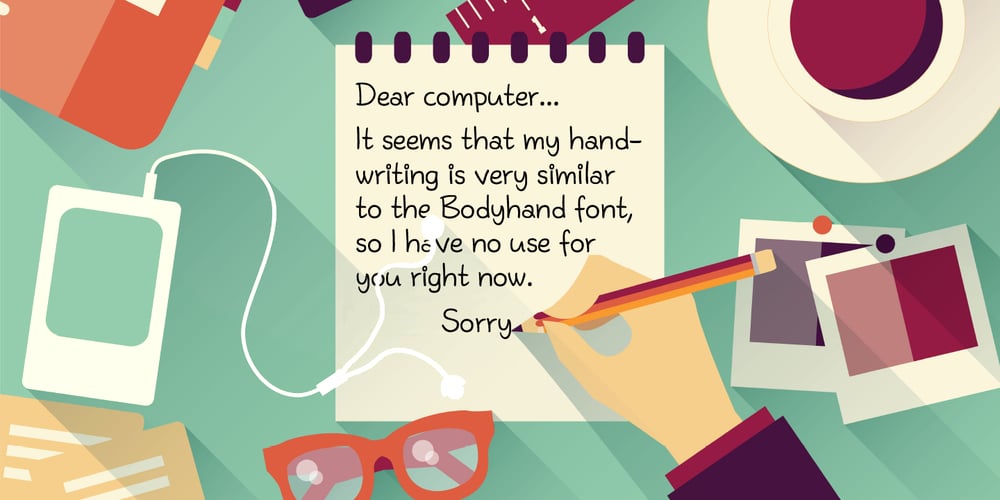
Bodyhand
Bodyhand font
Bodyhand Font Family was designed by Jonas Bohlin and published by Bodyhand. Bodyhand contains 2 styles and family package options. The main problem with handwritten fonts is the limited use in body text. Bodyhand is specifically designed to remedy this, for example when designing children’s books with a larger amount of text or in similar contexts. Bodyhand is especially adapted to read comfortably even when used in small font size and requires approximately the same space as the fonts we usually use in body text, such as Times or Helvetica.